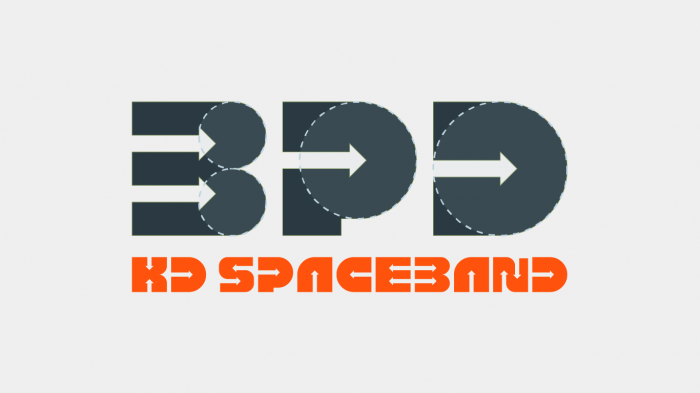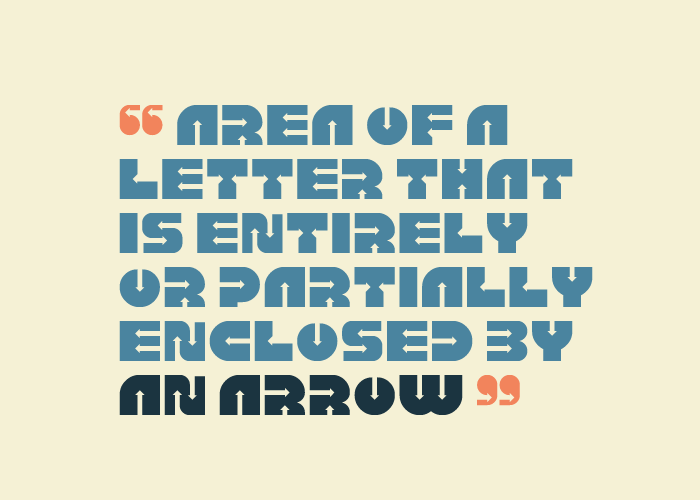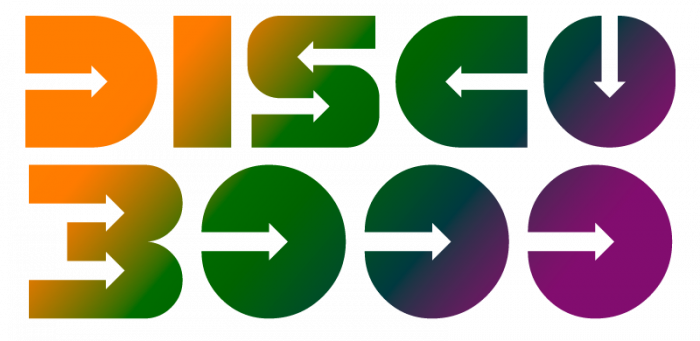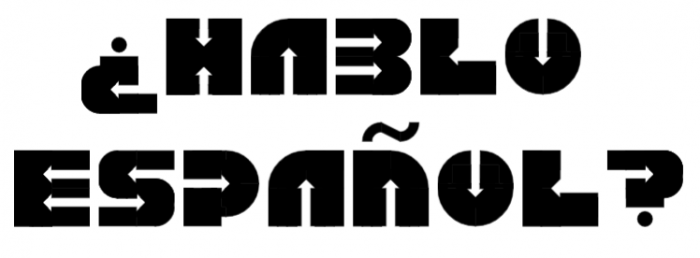
awesome
This is phenomenal. Using arrows to represent the counters and inlets is an amazing idea; for me, it creates a sort of open-sky effect, almost like an airplane or spaceship is traveling at high speeds through the vast blue expanses of the letterform. The symmetries created are fascinating: C and D are a perfect mirror, which looks cool in the preview, and U also goes along (A could've too, but paired off with V instead); uppercase M and W share their shape with B, and almost E as well.
From a technical standpoint, this would definitely have been impossible to pull off this well just a couple of years ago; ⅛-nudging is crucial to getting many of the curves lined up properly. I'm still trying to understand how you created those three circles emphasized in the first sample—I think the middle one is 4x4 grid squares, but I'm barely understanding how you've managed to create a 2¼x2¼ circle, let alone 4½x4½!
The one humble nitpick I have is that the O feels a little too small when surrounded by other letters. However, I'm not sure that there's a good way to fix that while keeping the perfectly round profile. I also really adore the quotation marks in your sample for some reason, but I do wish that the flat, narrow parts (not sure what to call them) were just a hair shorter. Again, though, I don't know if this is possible on the tiny scale you're working with.
Overall, I really love the concept, design, and execution. Were I on the judging panel, it might be tough to choose between this and your Hachure, but it'd definitely take four somehow more phenomenal designs to release you from my top 4!
Wow! Great design! And sample is very nice:)
@ETH: You raise a lot of good points. This works well with all caps only, actually the whole design started from D. There were no arrows at the begining, I tried to zip them, then I tried just putting nice round lines, but the arrows worked better.
I did change the comma and quotes ( it's possible ;) ), added alternate u, o, and you're right about O,o, three solutions are available now: UC O, lc o and zero (also possible to create mirror variants). I actually see one more solution but will probbaly make it later. There are also variations possible for letters like T,L with arrows pointing up.
The (9/4)x(9/4) circles are possible by using the four circles then tiny composites filling in the (1/4)x(1/4) gaps...
Absolutely love it!
Sorry... I had a spontaneous association... :-)
Nice work!
A great idea, wonderfully executed.
Excellent design! I prefer the lowercase variations of MNOQW. The zero seems to have an asymmetrical shape.
@V.sarela the zero has a horizontal line of symmetry...
I've changed the zero and uppercase O.
@77: I meant that the right side is bigger, but it has been fixed now.
Astonishing!
So pro, I thought it was a sponsored font.